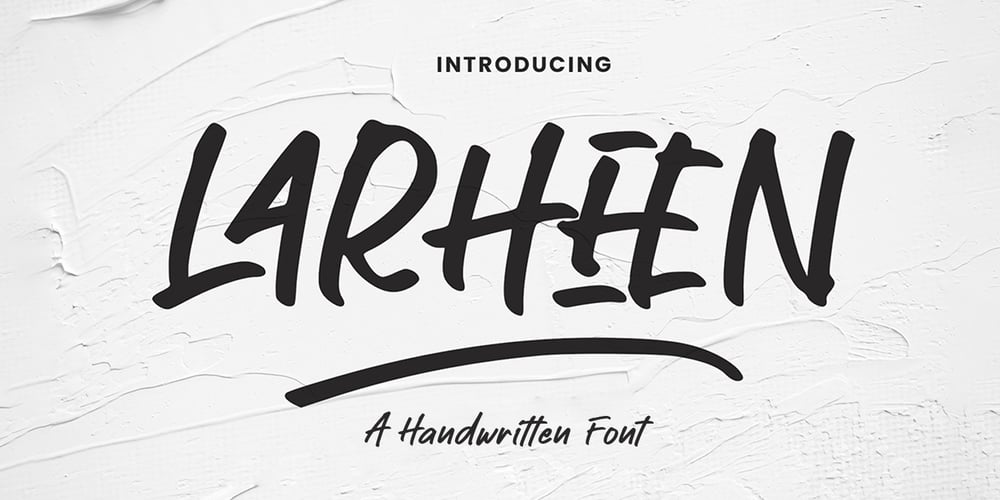
Larheen
Larheen font
Larheen Font Family was designed by Zikrillah and published by Suza Studio. Larheen contains 1 styles and family package options. LARHEEN Handwriting FontsHello have a nice day, I just published one of the best Stylish Handwriting Script. Best match for logos, headers, Titles, Prints & other Creative process possibilities.Create Stunning Typography/lettering Results using LARHEEN A Handwriting FontThanks.๐Ÿ˜Š